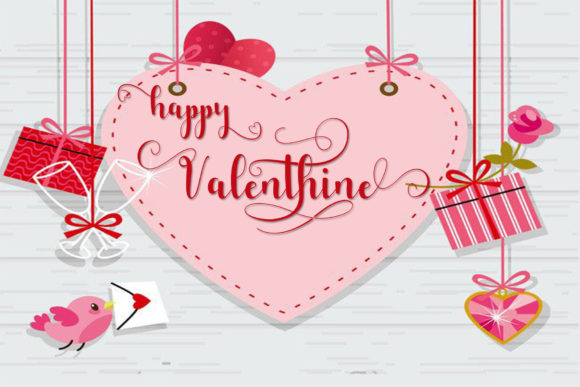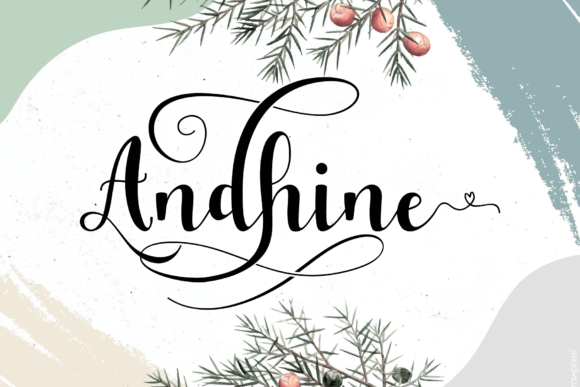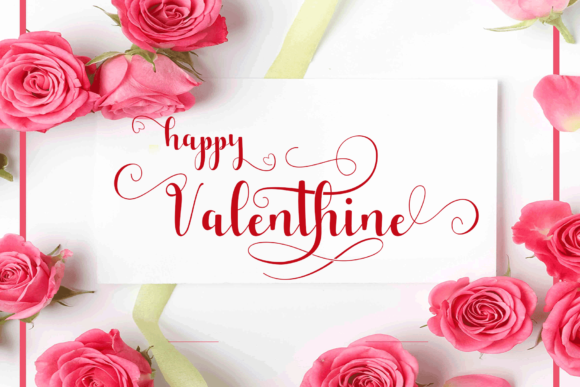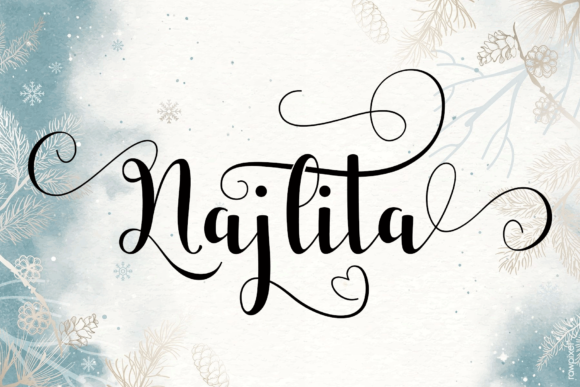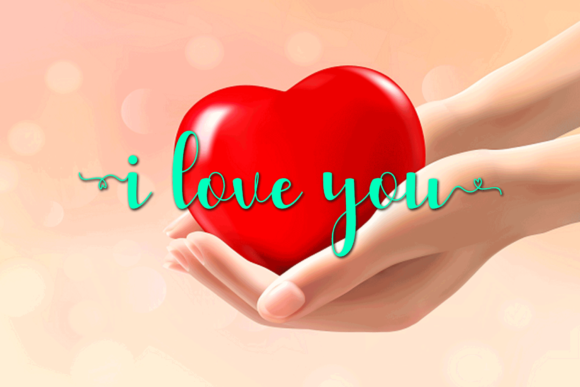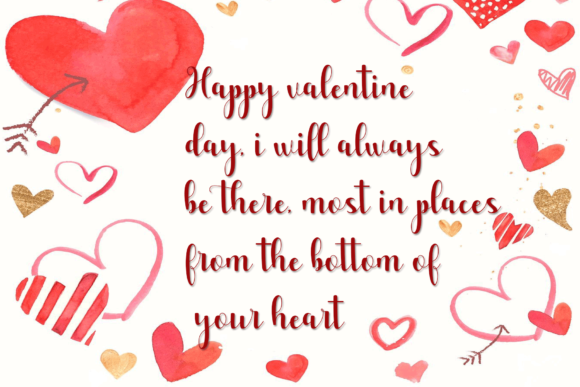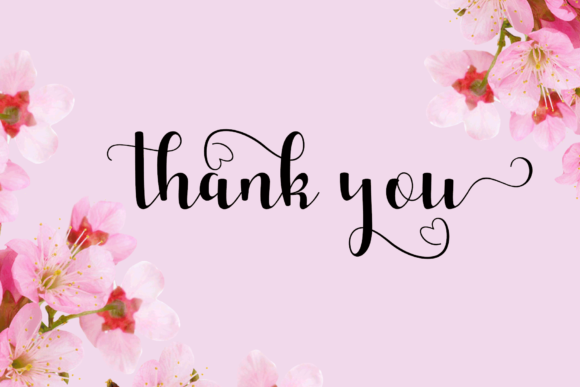
HomeScript FontsMonthany Font Script Fonts Monthany Font FacebookXPinterestWhatsApp Monthany Font Poster 2 Monthany Font Poster 3 Monthany Font Poster 4 Monthany Font Poster 5 Monthany Font Poster 6 Monthany Font Poster 7 Monthany Font Poster 8 About Monthany Font Monthany is a friendly and modern script font with a unique style. Fall in love with its playful look & feel! DOWNLOAD ON CREATIVE FABRICAThis font is sold and delivered by Creative Fabrica. Font Canyon may earn a commission if you buy through this link. People also explored Hatake Japan Font Blossomy Willian Font Melantic Beauty Font Bayberry Font Bailey Font Register Condensed Eastport JNL Font Play Party Hat Font 322 0 TagsMonthany Font Previous articleBaby Giovani Script FontNext articleCatrina Script Font LEAVE A REPLY Cancel reply Comment: Please enter your comment! Name:* Please enter your name here Email:* You have entered an incorrect email address! Please enter your email address here Website: Save my name, email, and website in this browser for the next time I comment. Personal Use Free Stereofidelic Personal Use Free Read more about this font Bettari Personal Use Free Read more about this font Berry Personal Use Free Read more about this font Daisy Script Personal Use Free Read more about this font BLOG Free Fonts Risk: Why Free Fonts Can Be Dangerous for Designers Free Fonts Risk: Why Free Fonts Can Be Dangerous for Designers Using free fonts is a common practice in web and graphic design. However, the... Where to Buy American Fonts Online in 2024 Transform Your Website: Elevate Your Typography with 7 Best Web Font Generators Top 10 Handwritten Fonts That Elevate Your Designs